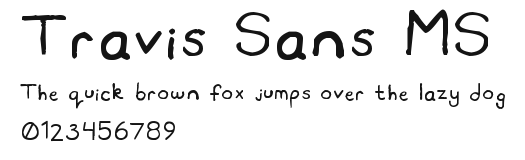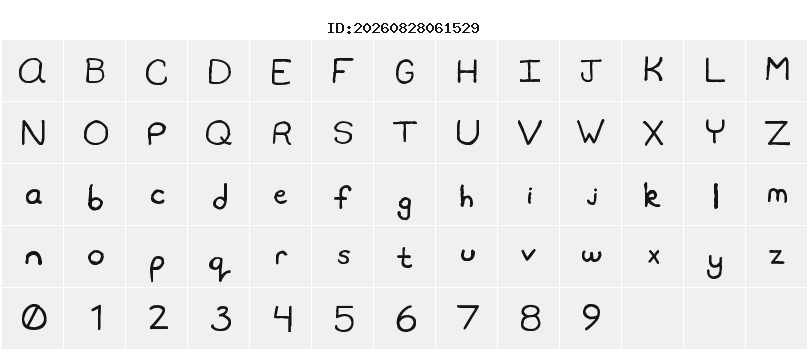
Travis Sans MS Preview
• Font Name: Travis Sans MS
• Full Font Name: Travis Sans MS
• Version: Version 1.00 March 8, 2014, initial release
• Description: This font was created using Scanahand from High-Logic.com
About Travis Sans MS.ttf
Travis Sans MS.ttf is a modern, elegant sans-serif font designed for ultimate readability and visual harmony. Perfect for branding, headlines, web design, and print materials.